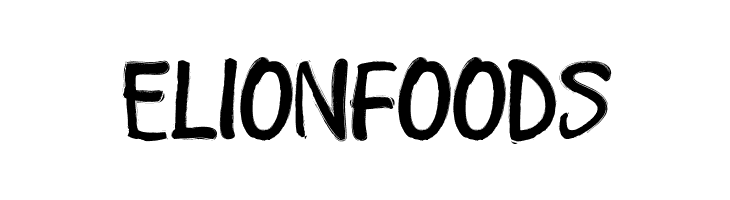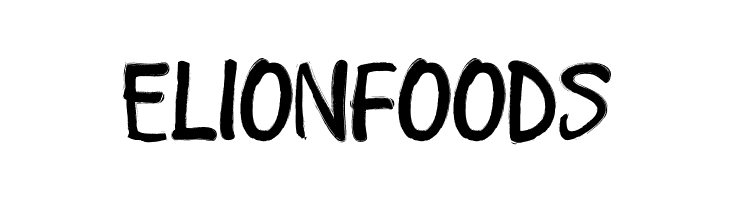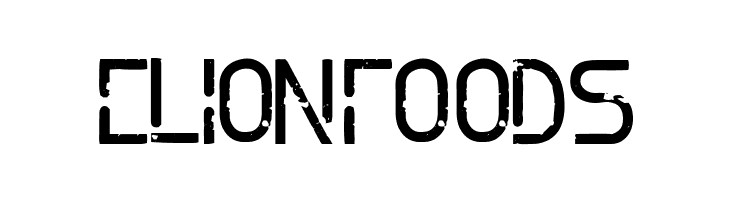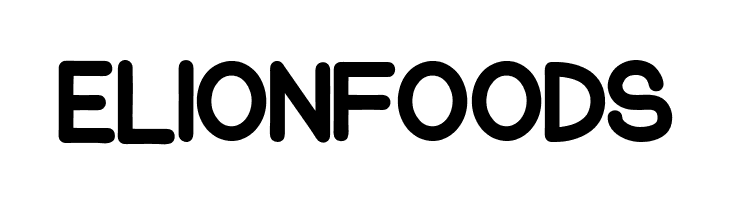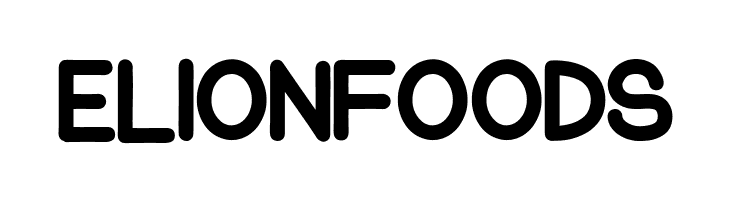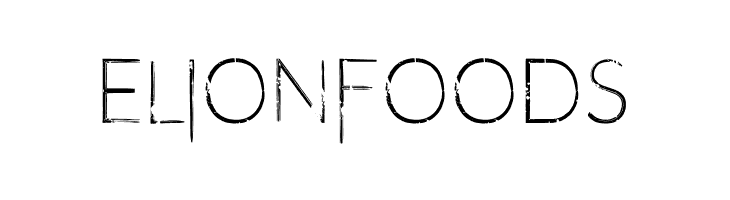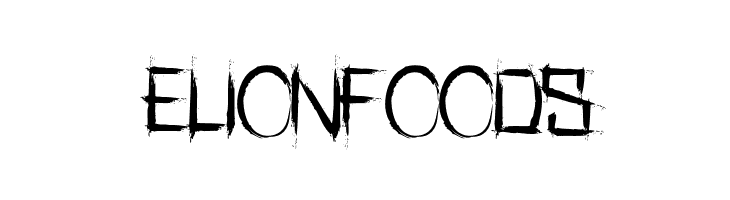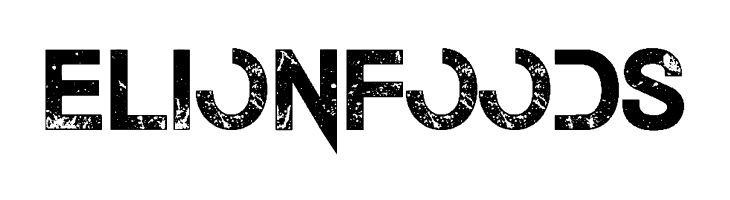
A bold, thorny, and intricate decorative font with a gothic and edgy style.
A rugged, industrial font with a distressed, mechanical appearance.
A bold, rounded font with a playful and approachable style.
A bold, rounded font with smooth curves and uniform strokes.
A distressed, modern font with a grunge aesthetic and geometric design.
A jagged, distressed font ideal for horror-themed designs.
A jagged, distressed font ideal for horror themes.
A bold, distressed font with a rugged, vintage appearance.